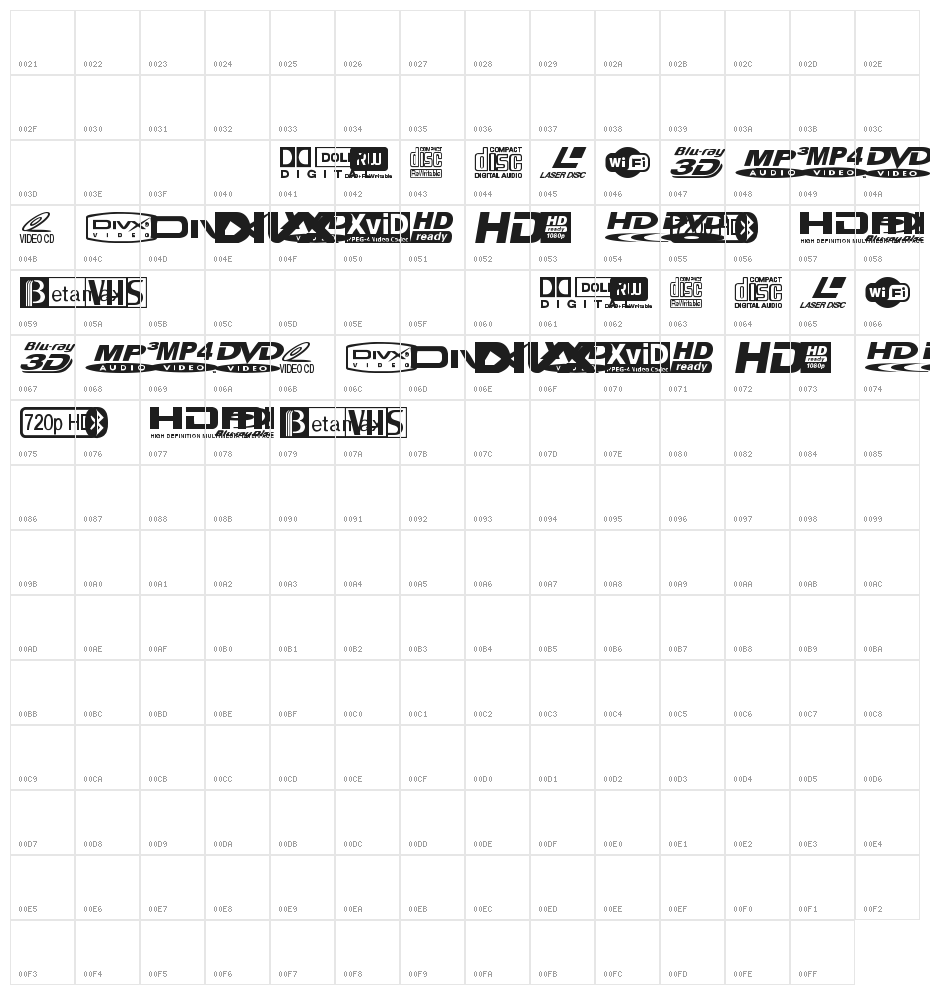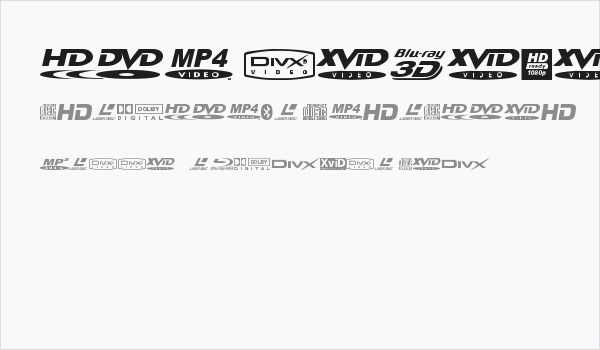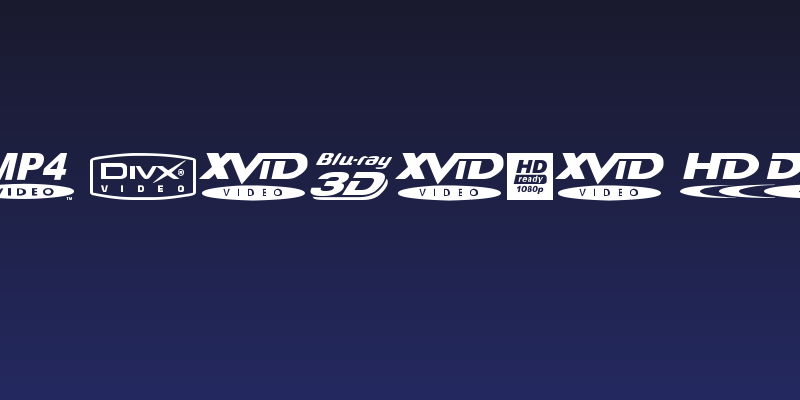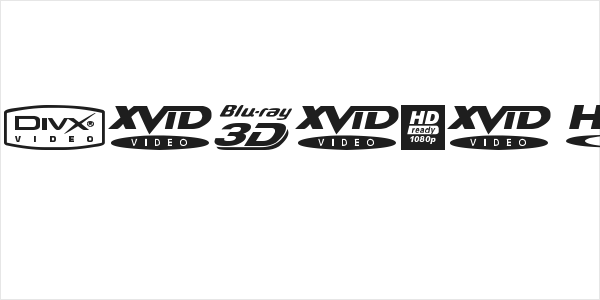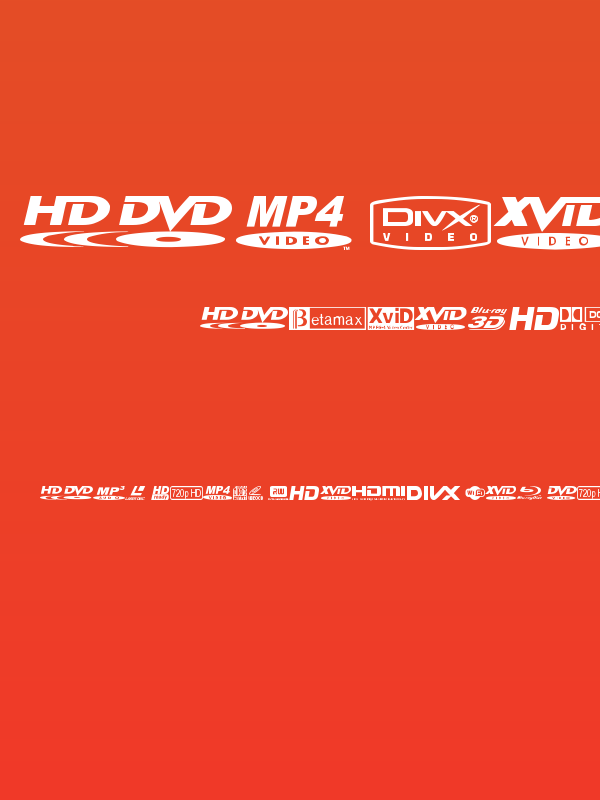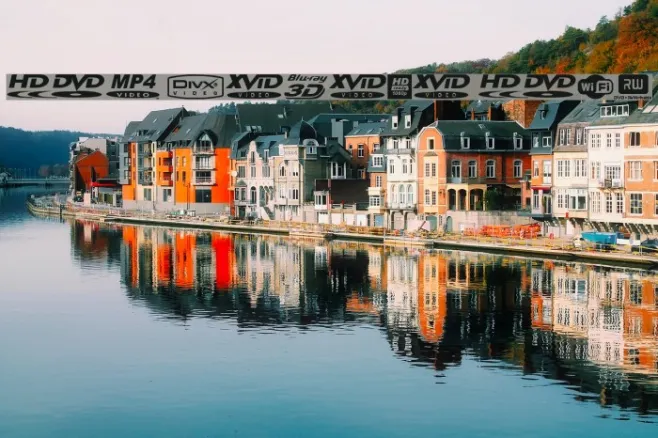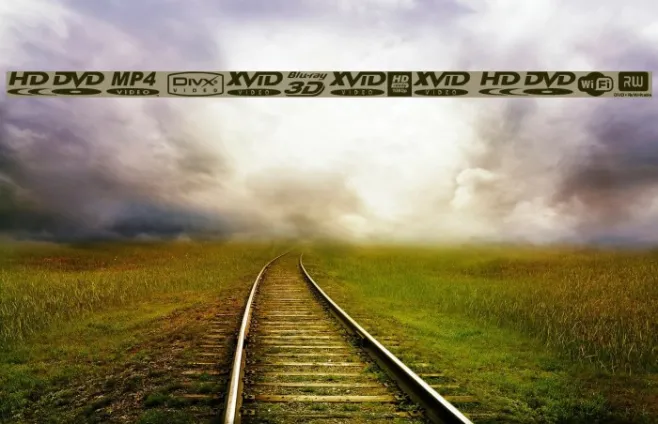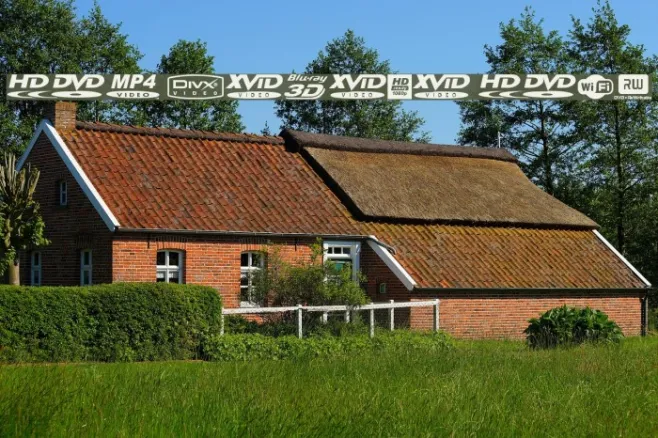
TI logoso TFB Font
TI logoso TFB Description
A collection of various technology and media format logos, each rendered in its own distinct style, including bold, geometric, and modern sans-serif letterforms, often with accompanying icons or graphic elements. The set includes logos for audio, video, and data formats such as Dolby Digital, Blu-ray, DVD, DivX, HDMI, and more.
| Overall Style | Modern, Technical, Decorative |
| Use Case | Logos, Icons, Branding, Labels |
| Proposed Projects | Tech presentations, infographics, product packaging, user manuals, electronics branding. |